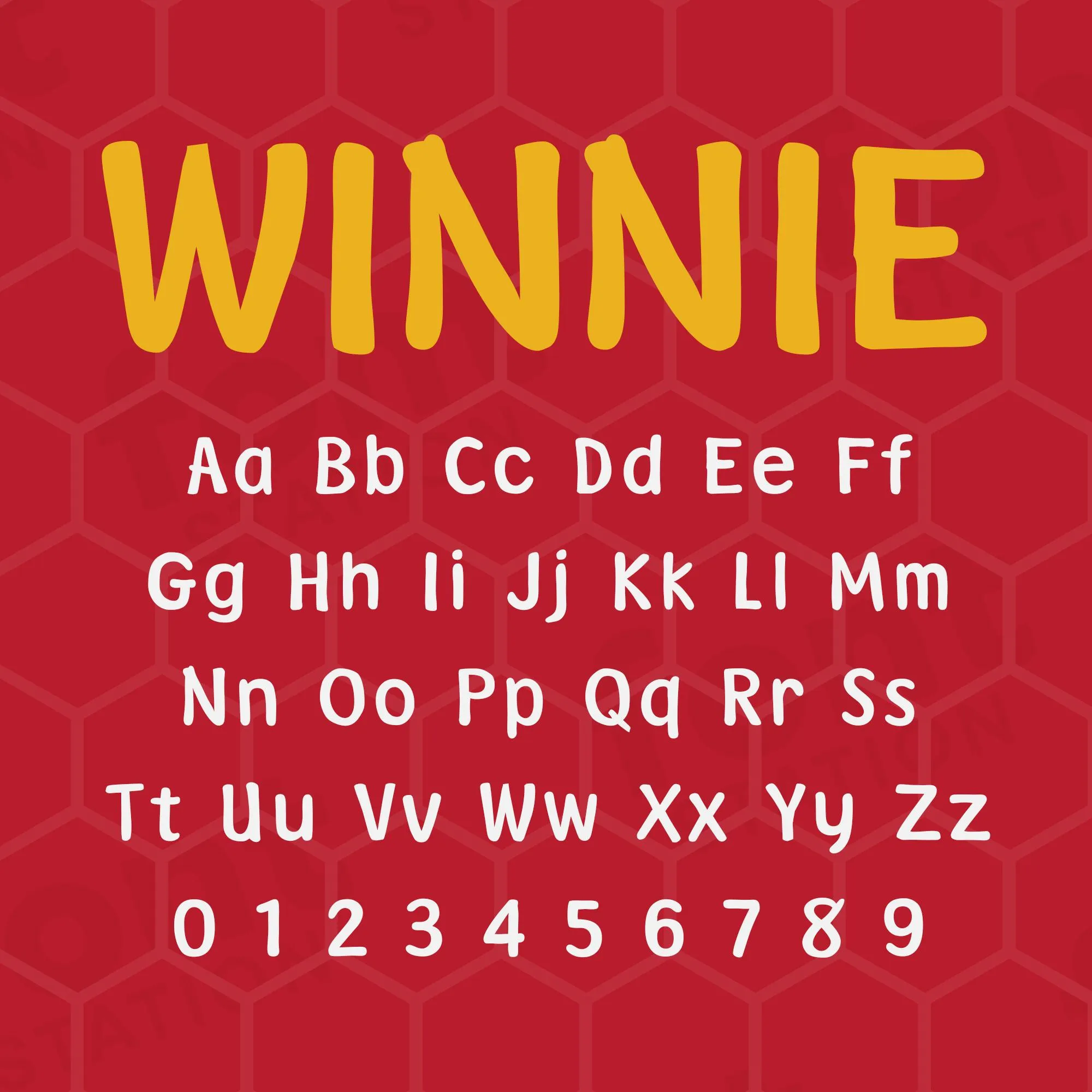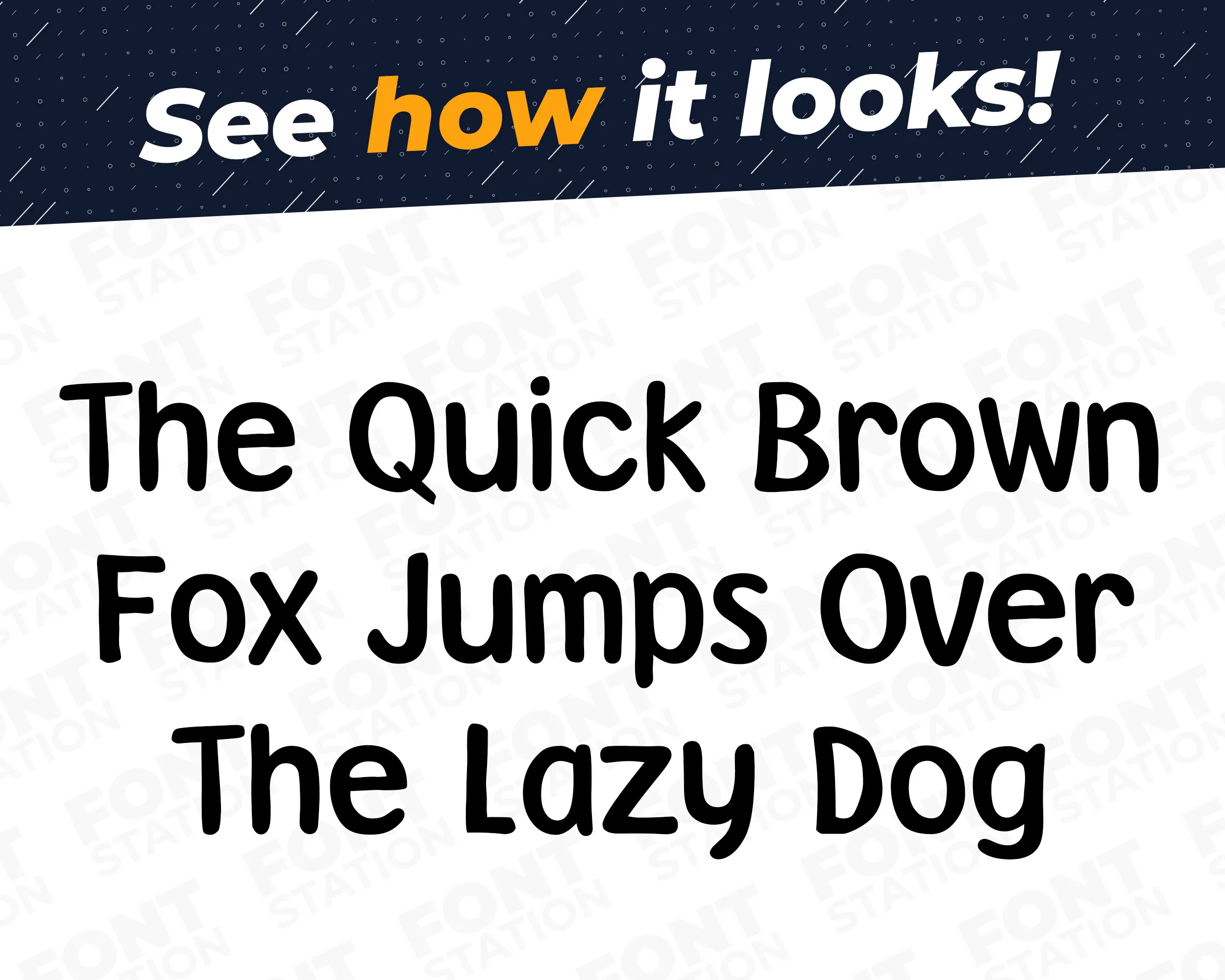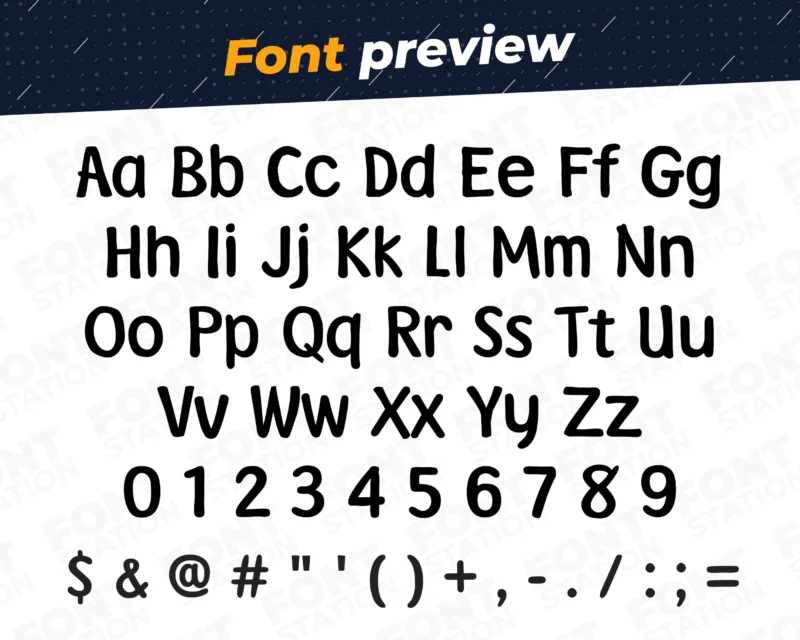
Our Teddy Bear typeface, inspired from Winnie The Pooh font
Grab your computer, tablet or other device and start creating right now with our Winnie The Pooh font letters! Our Teddy Bear typography is inspired from Winnie The Pooh animated movie font, making it ideal for various digital creations (logo, word…), sublimation, cake toppers, stickers, event decorations, and more.
Image showing all characters available in the Winnie The Pooh font created by FontMaze.
Winnie The Pooh Font